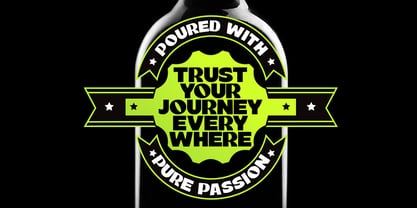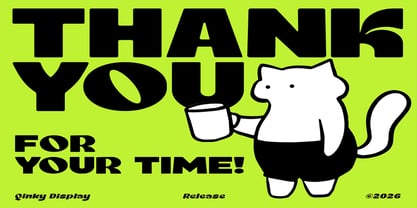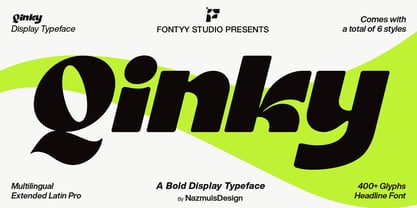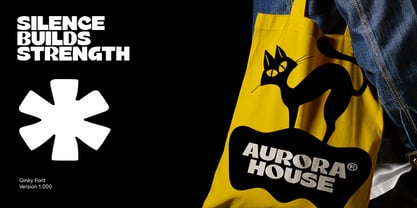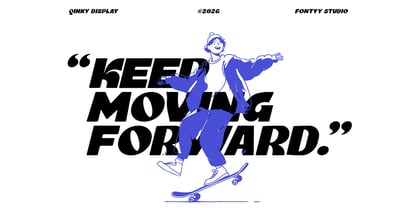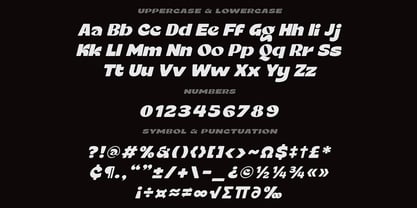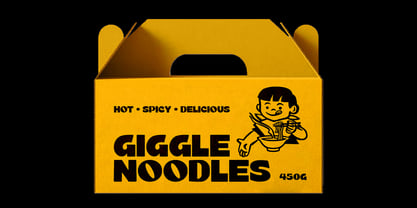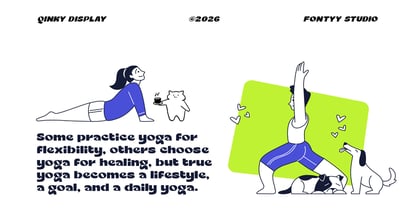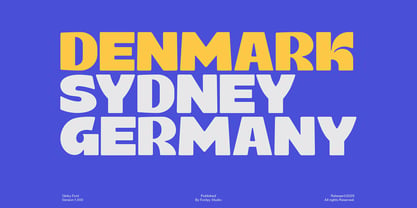
Qinky
por NazmulsDesign
La familia tipográfica Qinky fue diseñada por Nazmul Islam y publicada por NazmulsDesign. Qinky contiene 6 estilos y opciones de paquete familiar. Más información sobre esta familia
Qinky is a bold display typeface designed to push visual expression beyond ordinary typography. Inspired by modern geometric forms and softened with fluid curves, it creates a distinctive balance between strength and elegance. Each character has been meticulously refined to ensure consistency, clarity, and personality across the entire typeface.
The family includes Qinky Regular, Regular Italic, Expanded, Expanded Italic, Ultra Expanded, and Ultra Expanded Italic, giving designers greater flexibility for hierarchy, emphasis, and expressive layouts. Whether you're creating a bold brand identity or an eye-catching display, Qinky adapts effortlessly to a wide range of creative projects.
Diseñadores: Nazmul Islam
Fundición: NazmulsDesign